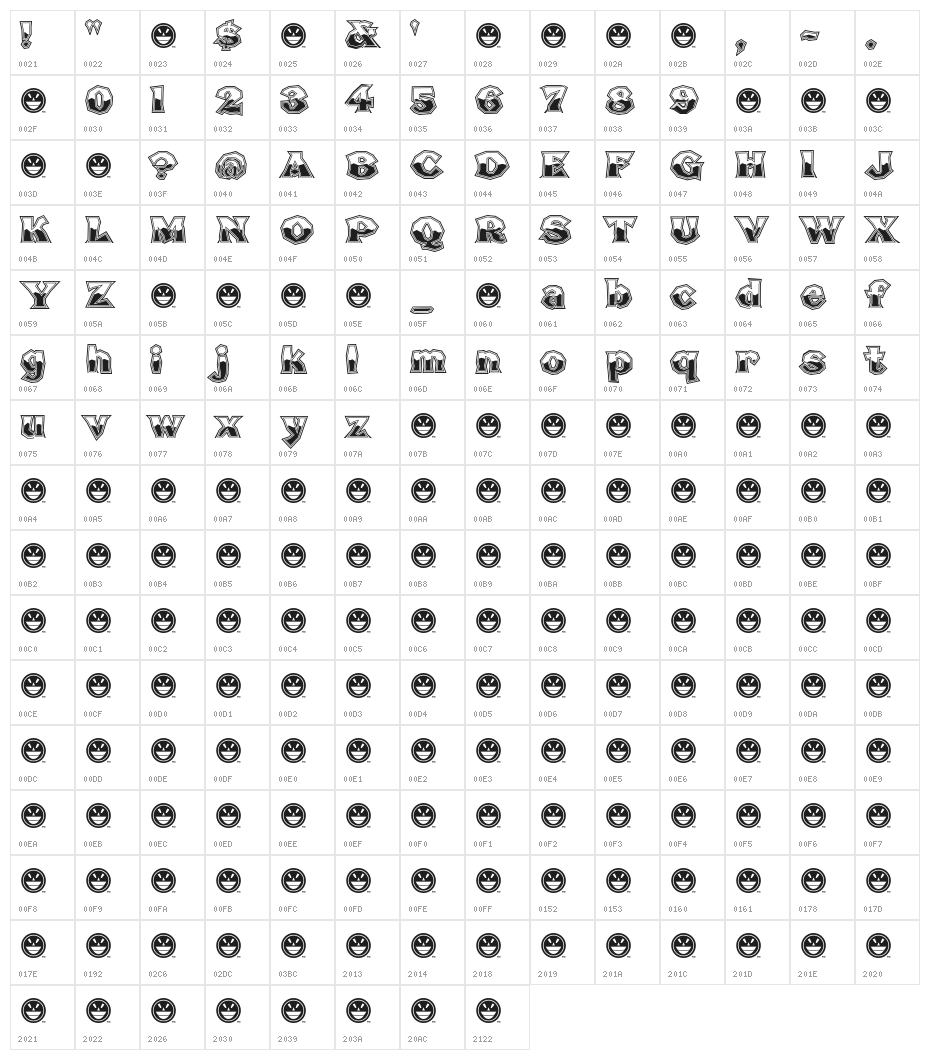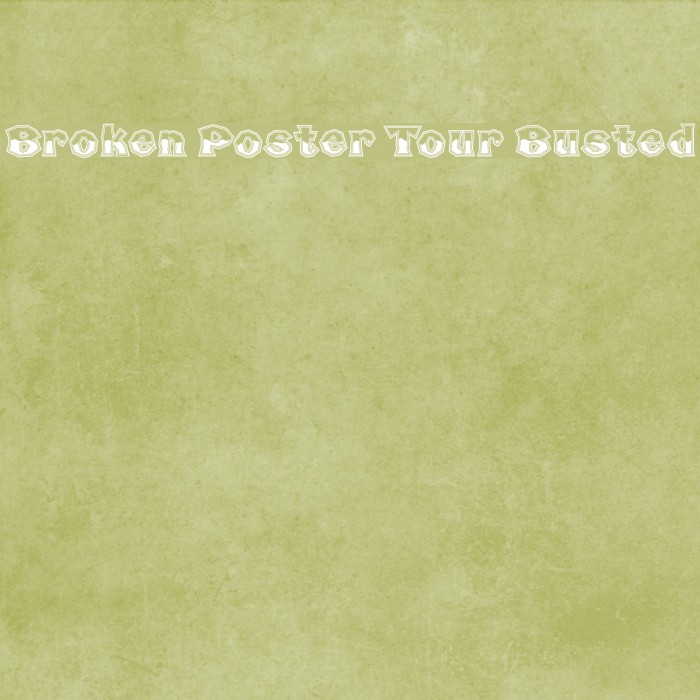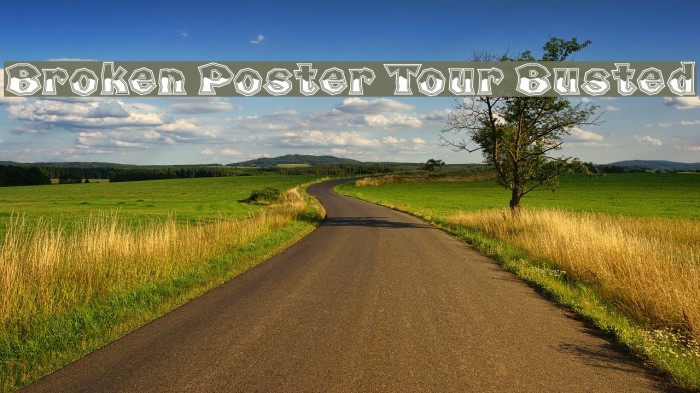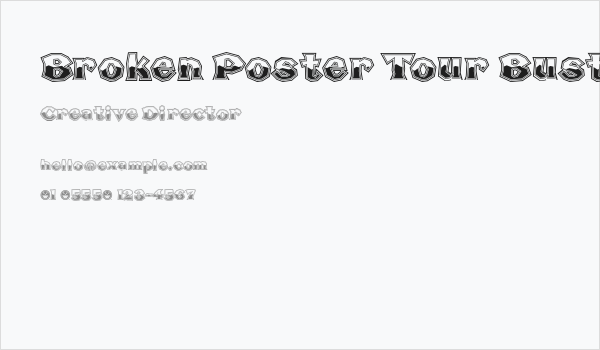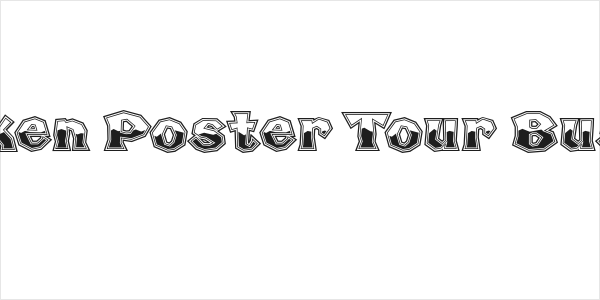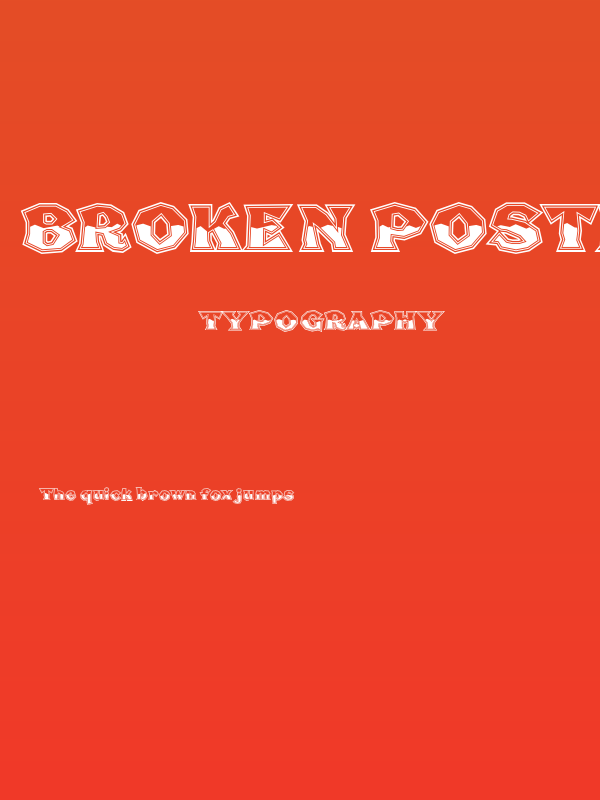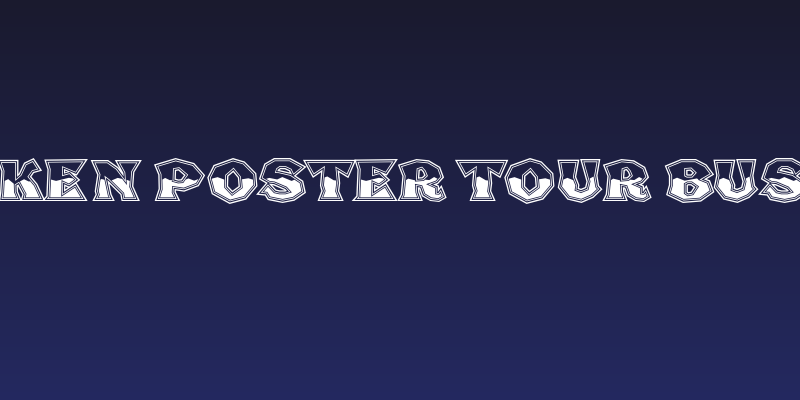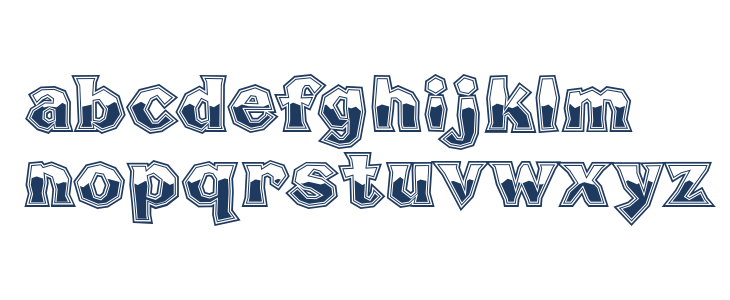
Broken Poster Tour Busted Font
Broken Poster Tour Busted Description
This font features a bold, decorative style with a three-dimensional effect, characterized by thick outlines and shadowing that gives it a dynamic, eye-catching appearance. The letters have a playful, almost cartoonish quality, with exaggerated angles and curves that add to its distinctive look. The uppercase and lowercase letters maintain a consistent style, while the numbers and special characters complement the overall design with similar boldness and flair. This font is ideal for projects that require a strong visual impact and a sense of fun or excitement.